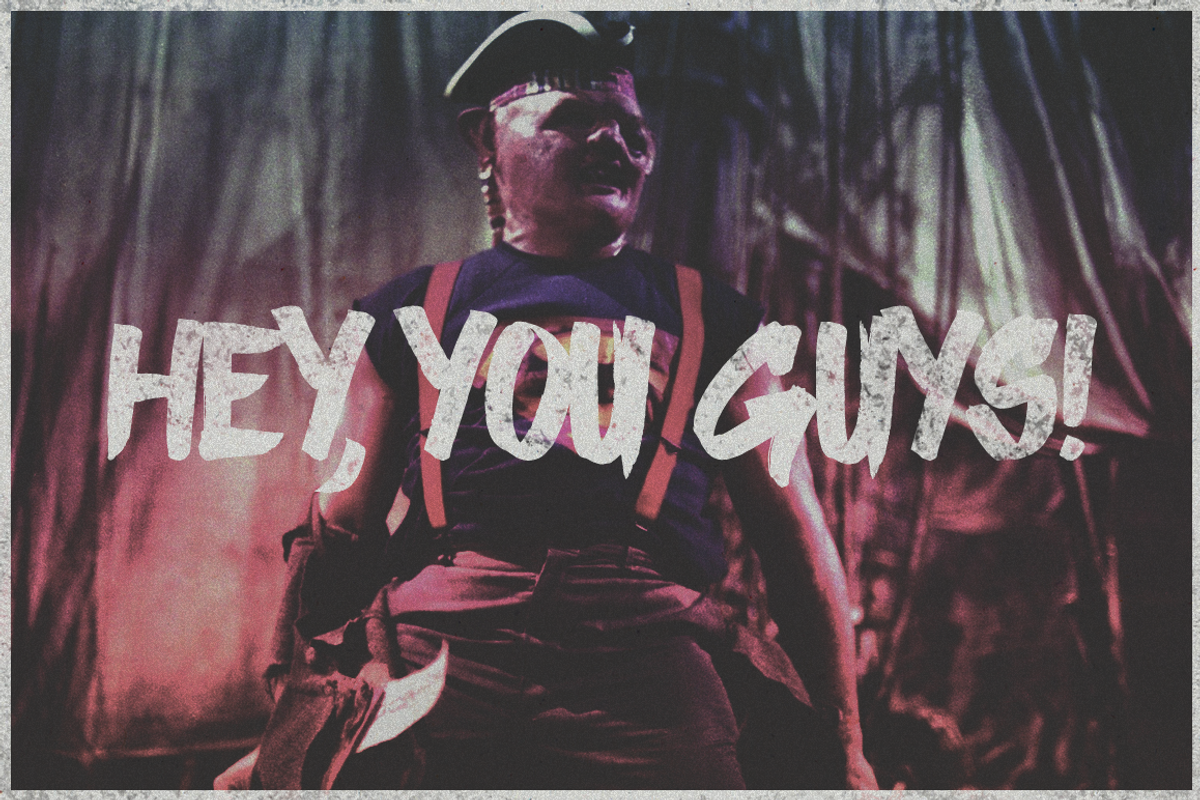
Sloth Font
Sloth Font by Primo’s Workshop is a font selected for branding, posters, packaging, typography.
- Sloth comes with the uppercase alphabet characters as well as numerals.
- It also includes some basic punctuation: !
Why Sloth Font is worth a look
Sloth Font by Primo’s Workshop fits naturally into Branding, posters, packaging, typography.